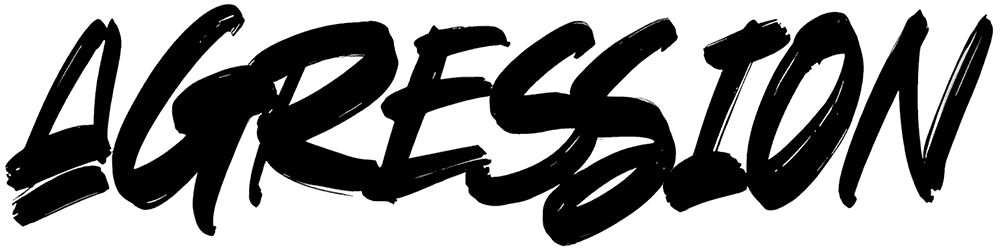
Agression Font
Here we come again to proudly introduce you to a marvelous script font, the same as the Agression that carries crooked and angular letters, thus looking totally suitable for a wide range of creative ideas.
This all-caps aggressive font can bring a vibe of dynamic, cool, adventure, and personalization to all of your creative content. Aside from not fully supporting numbers, it can be on your radar for designing social media posts, video game brochures, illustrations, stickers, and flyers.